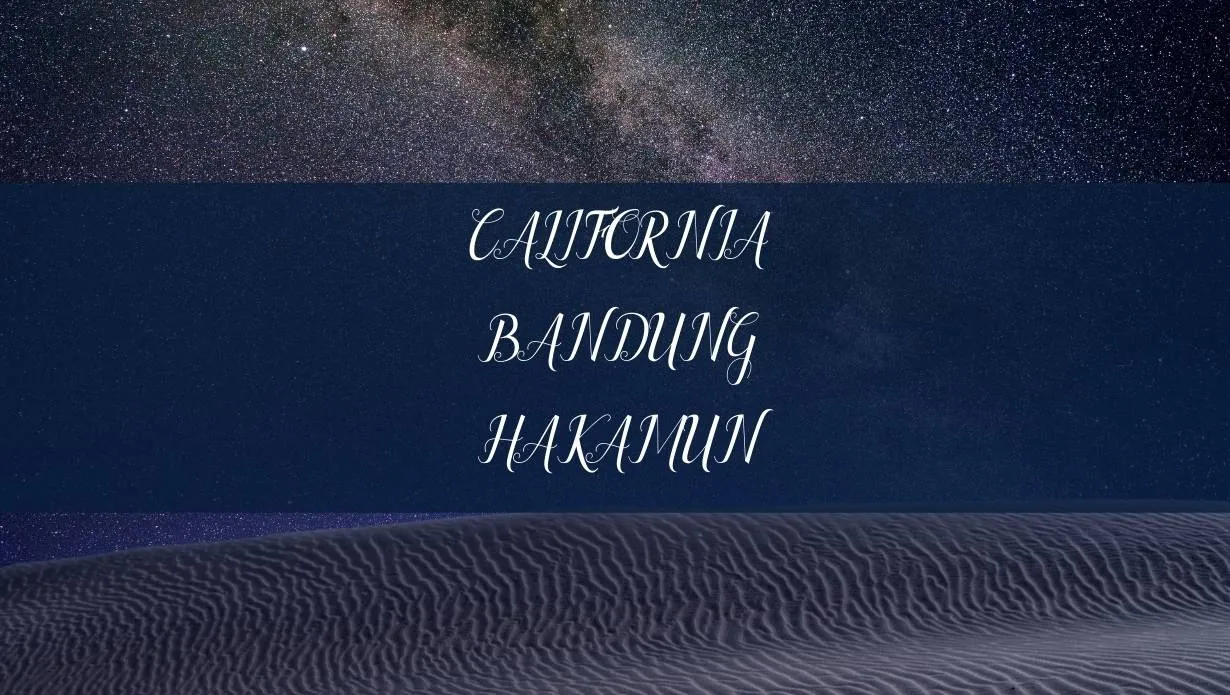
Elizabeth Font is a typeface created by American type designer Jonathan Hoefler. The font is named after Elizabeth Woodville, the wife of King Edward IV of England. This Font was first released in 2004.
If you’re looking for a stylish script typeface with a classic design, This Font is a great option. You can easily generate this unique font via an online font generator tool where you generate any type of font. The Cowboy Font makes a very lovely pair with this font.
View of Elizabeth Font
Elizabeth Font Info
| Name | Elizabeth Font |
| Designer | Jonathan Hoefler |